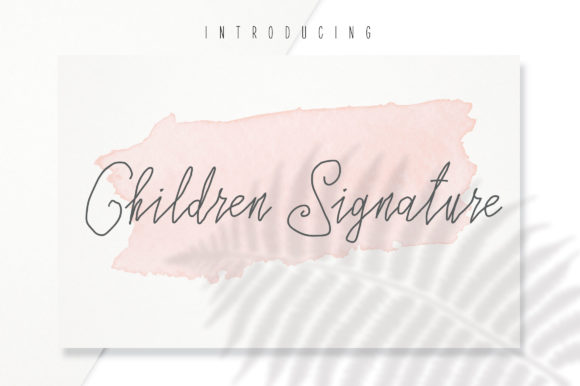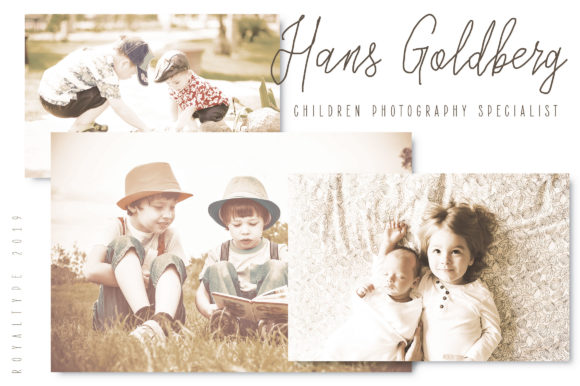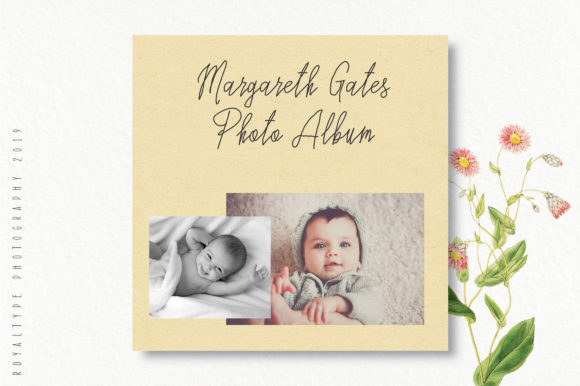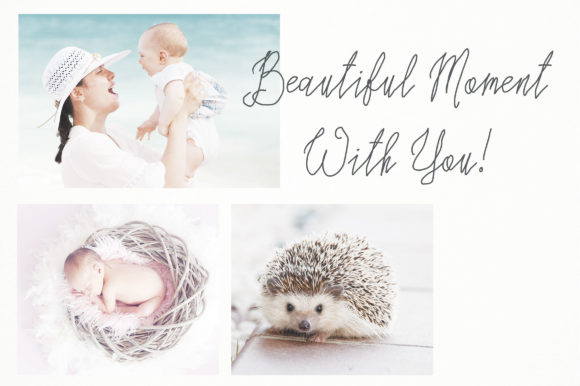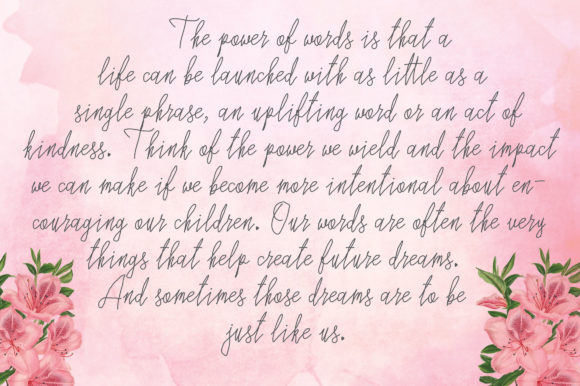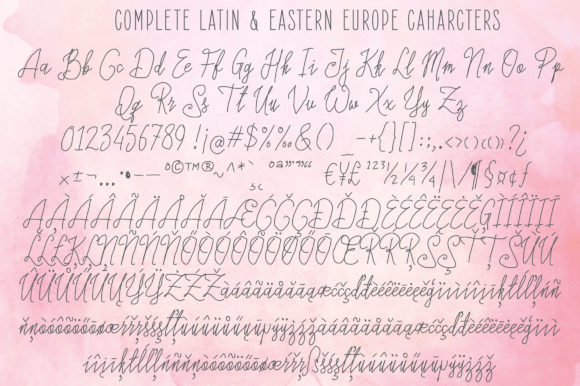
Children Signature Font
About Children Signature Font
Children Signature is, as the name suggests, a bouncy and casual handwritten font with a childlike feel. It will add an adorable twist to any design idea!